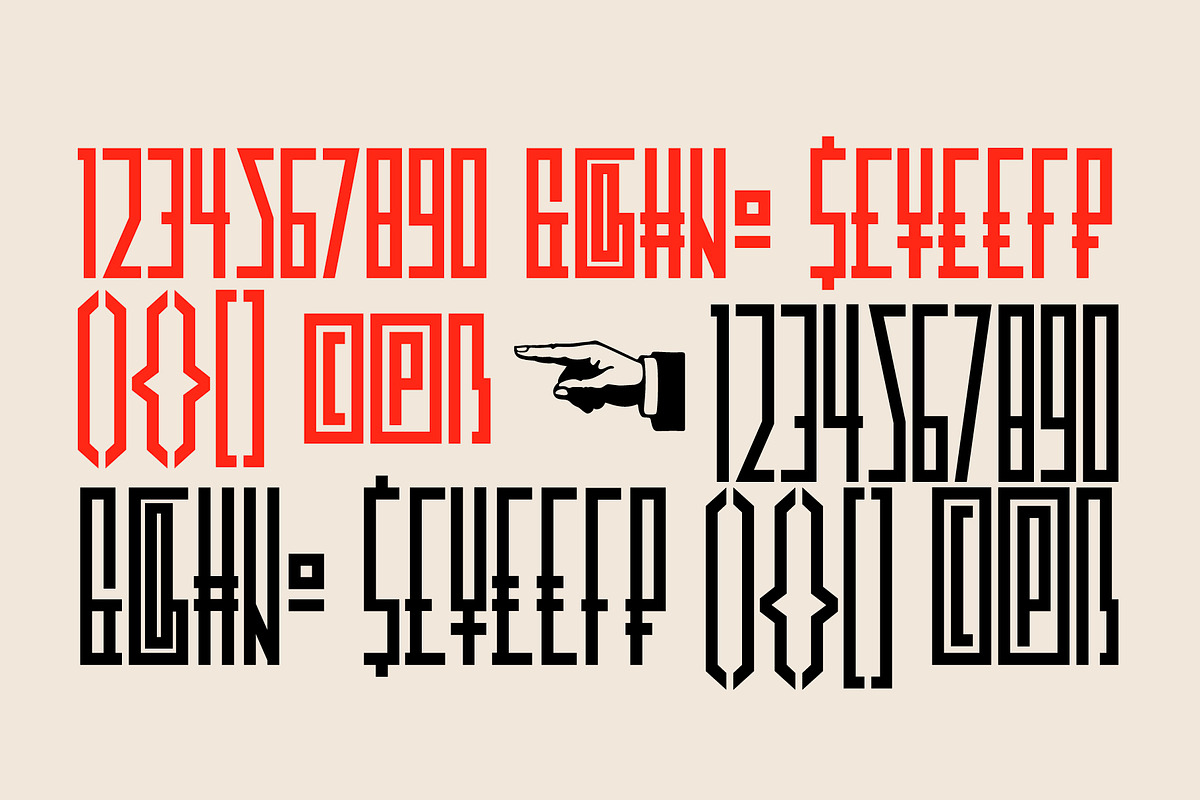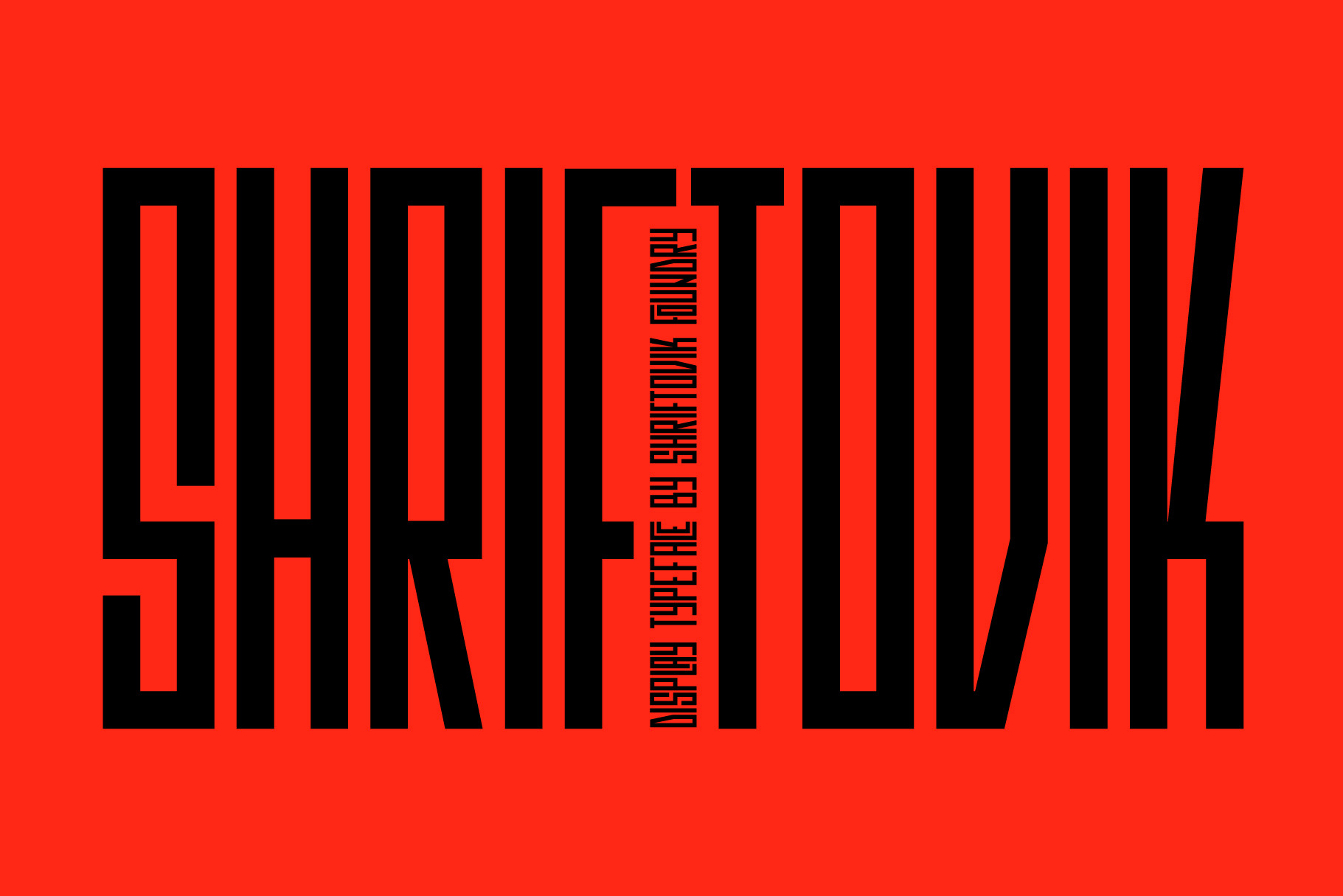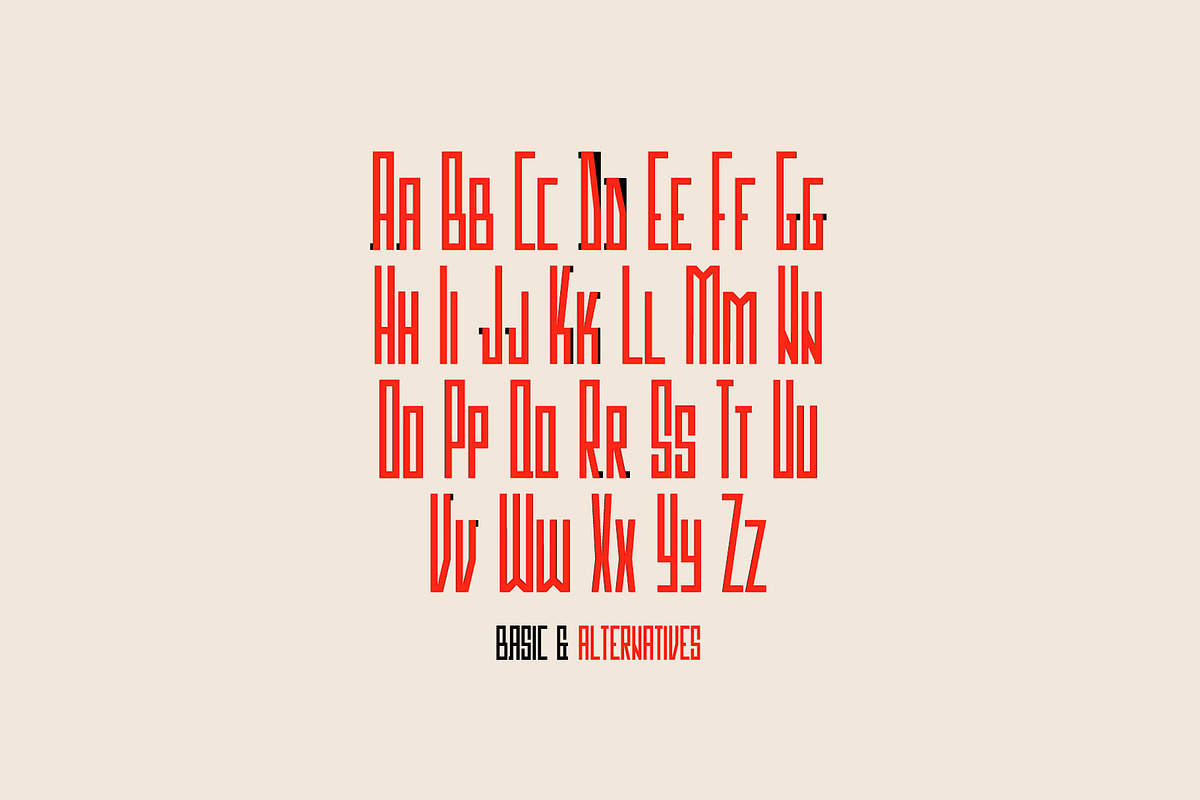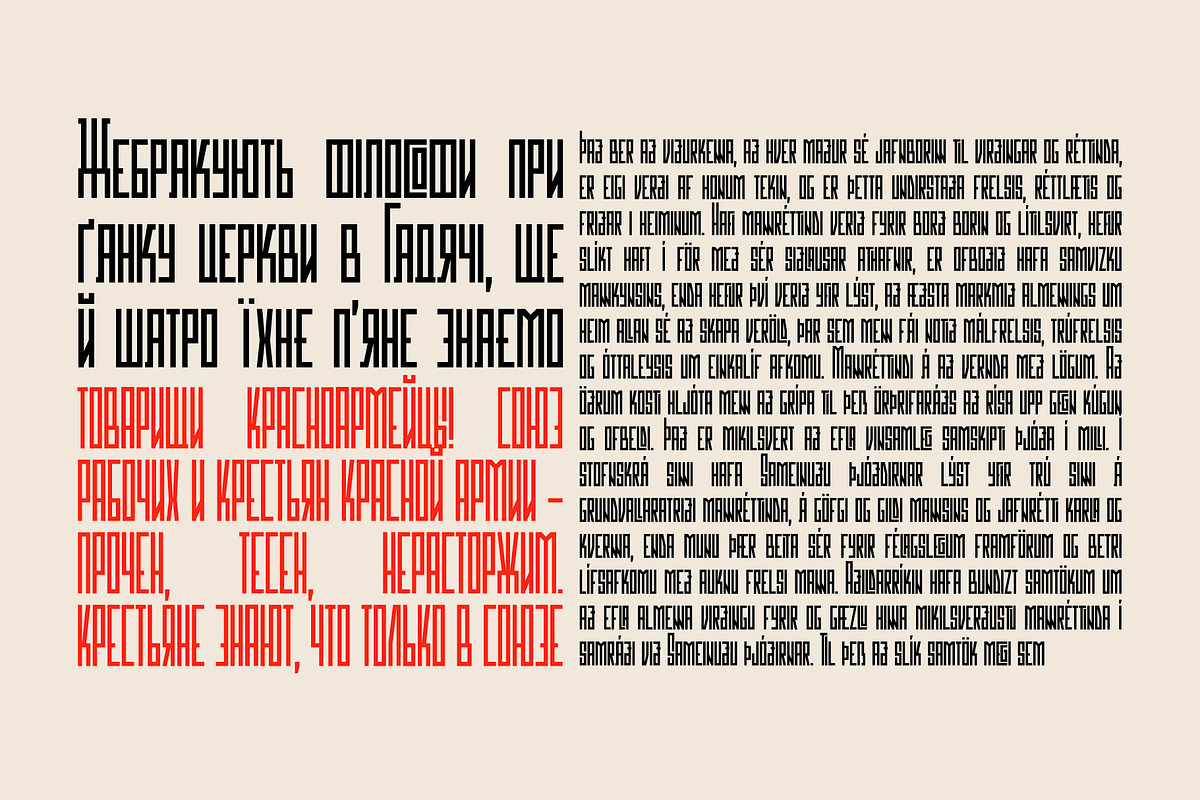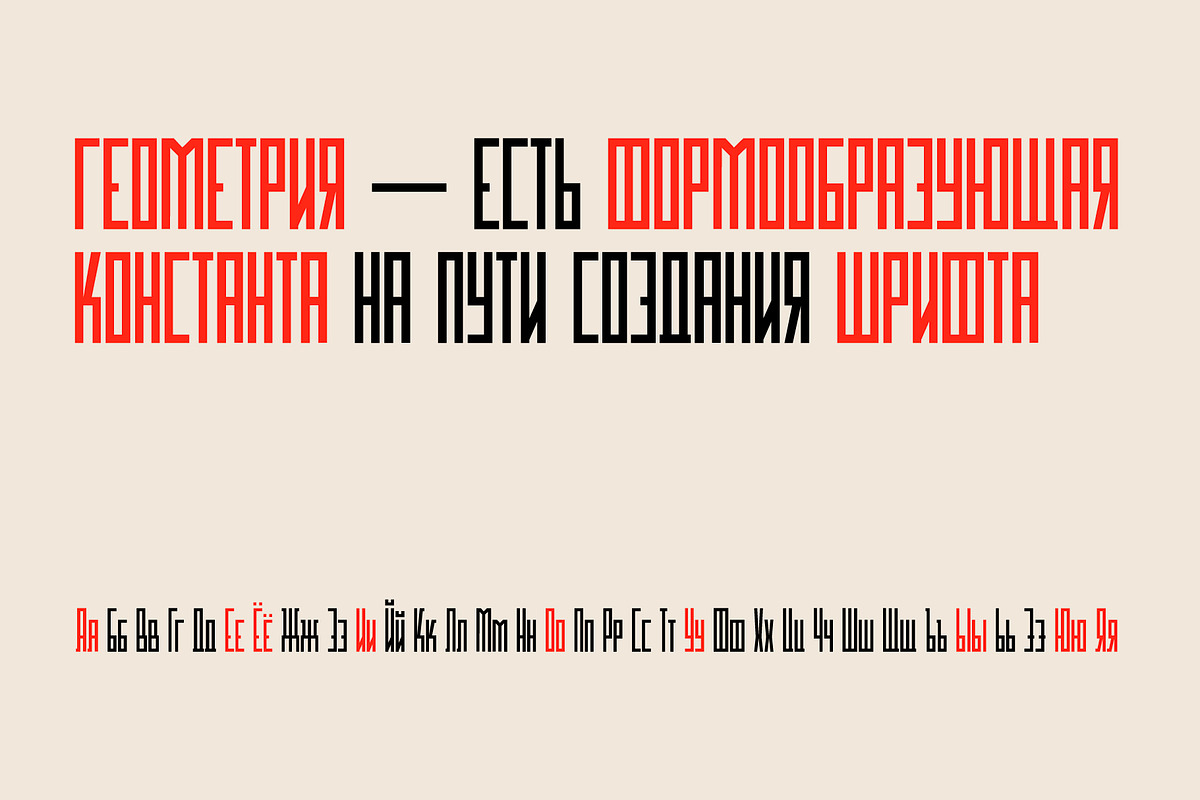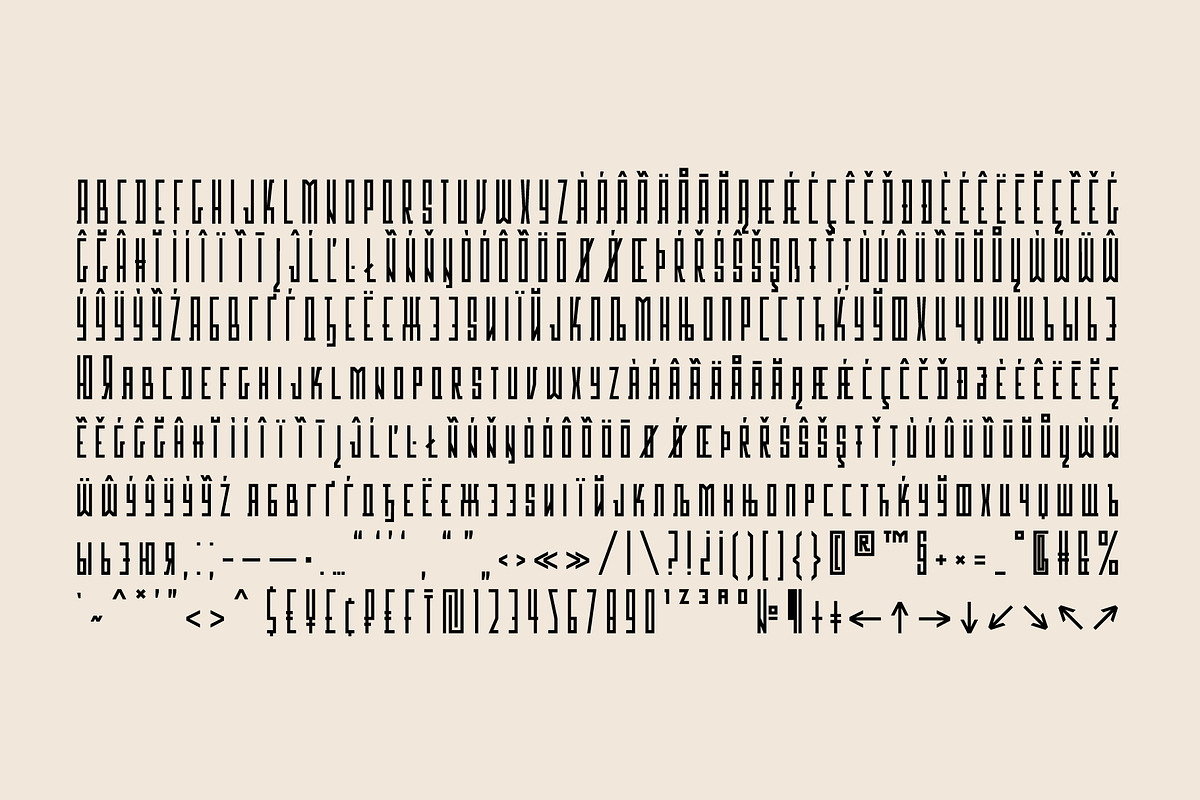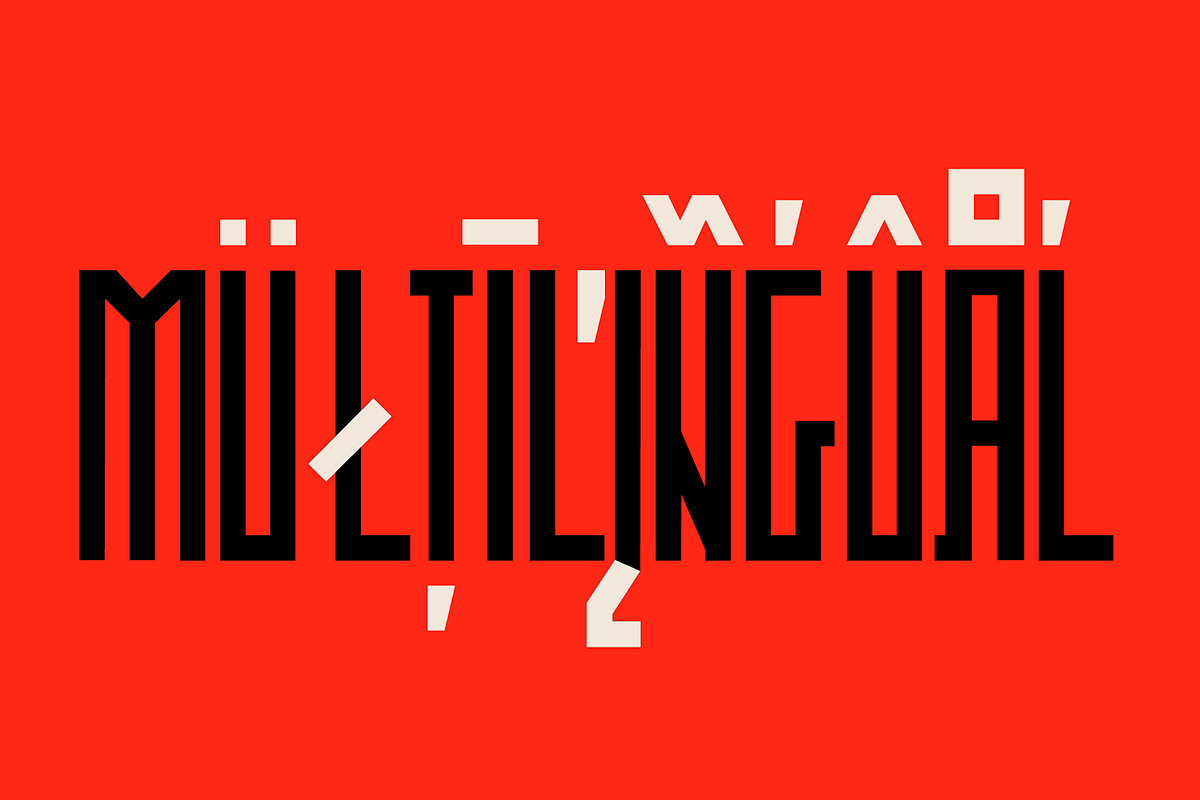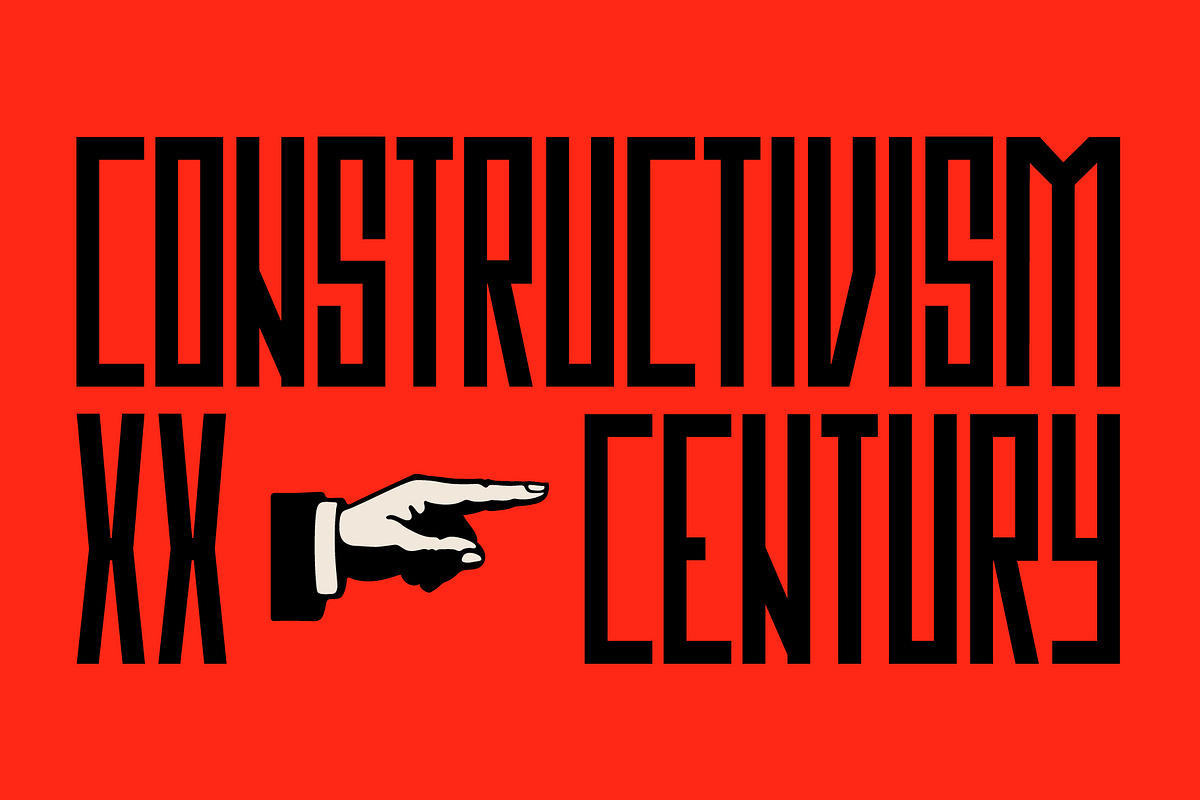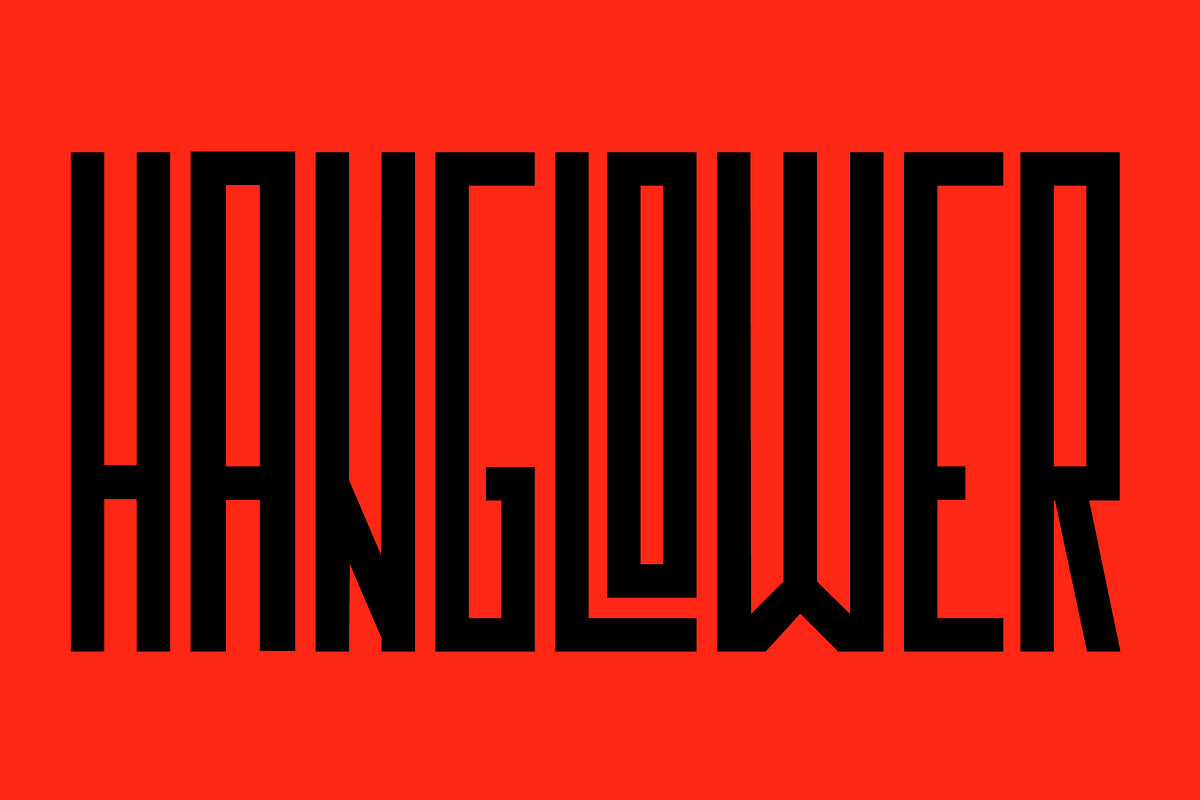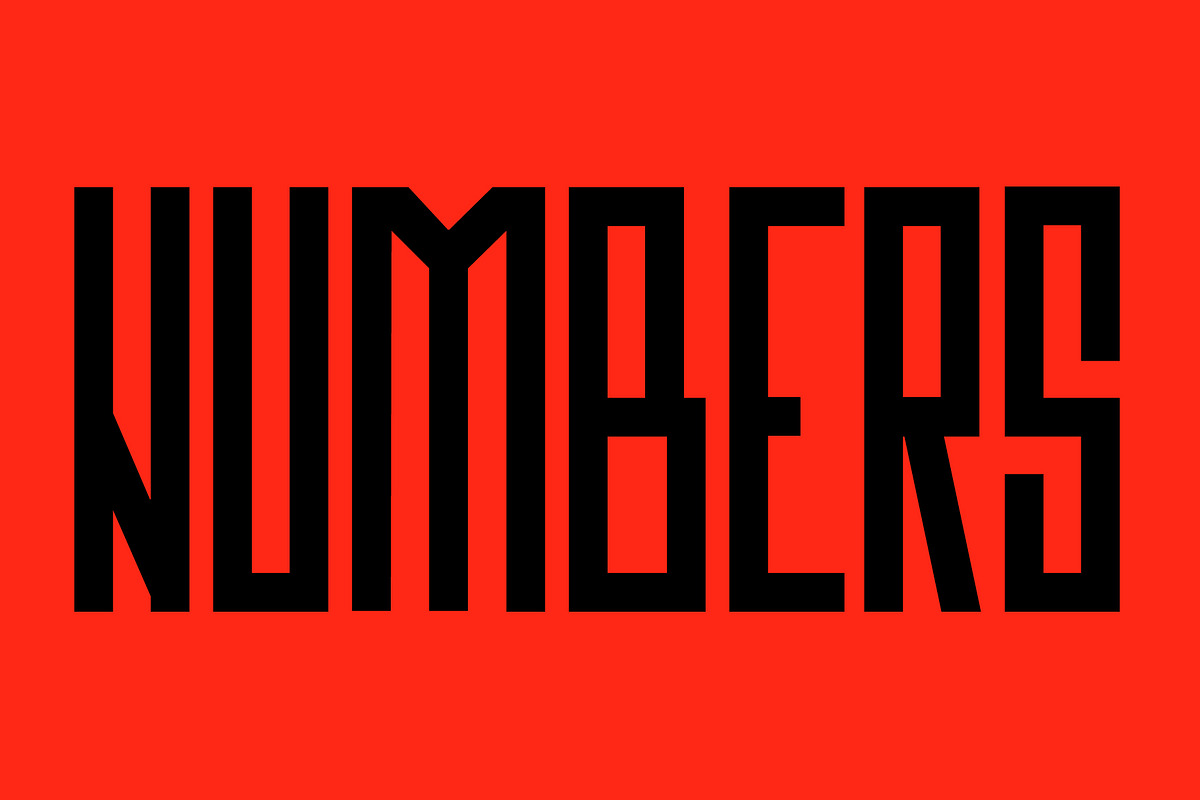
SK Shriftovik — Geometric Font
SK Shriftovik is a geometrical, caps and small caps only, sans serif typeface inspired by the works of constructivists of the early XX century. Due to its structure, this display typeface is good for posters and magazines. The SK Shriftovik typeface supports many languages, including extended Latin and Cyrillic. The font contains many ligature combinations and stylistic alternatives that significantly transform the text.